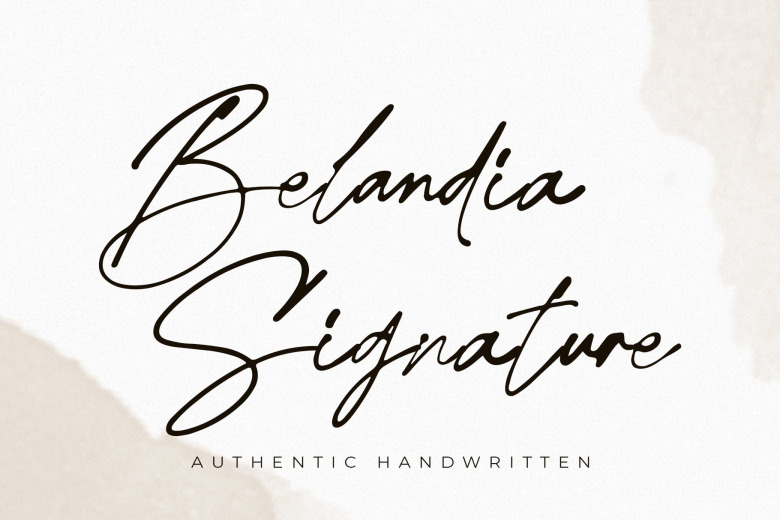
Belandia Signature Font
Belandia Signature Script Font
Belandia Signature Script Font is a beautiful handwritten script typeface manufactured by MJB Letters. Perfect for making elegant stylish statements – or adding a touch of class to your designs. This font is very perfect for signature, watermark, logo, branding, web design, poster, quotes and more.